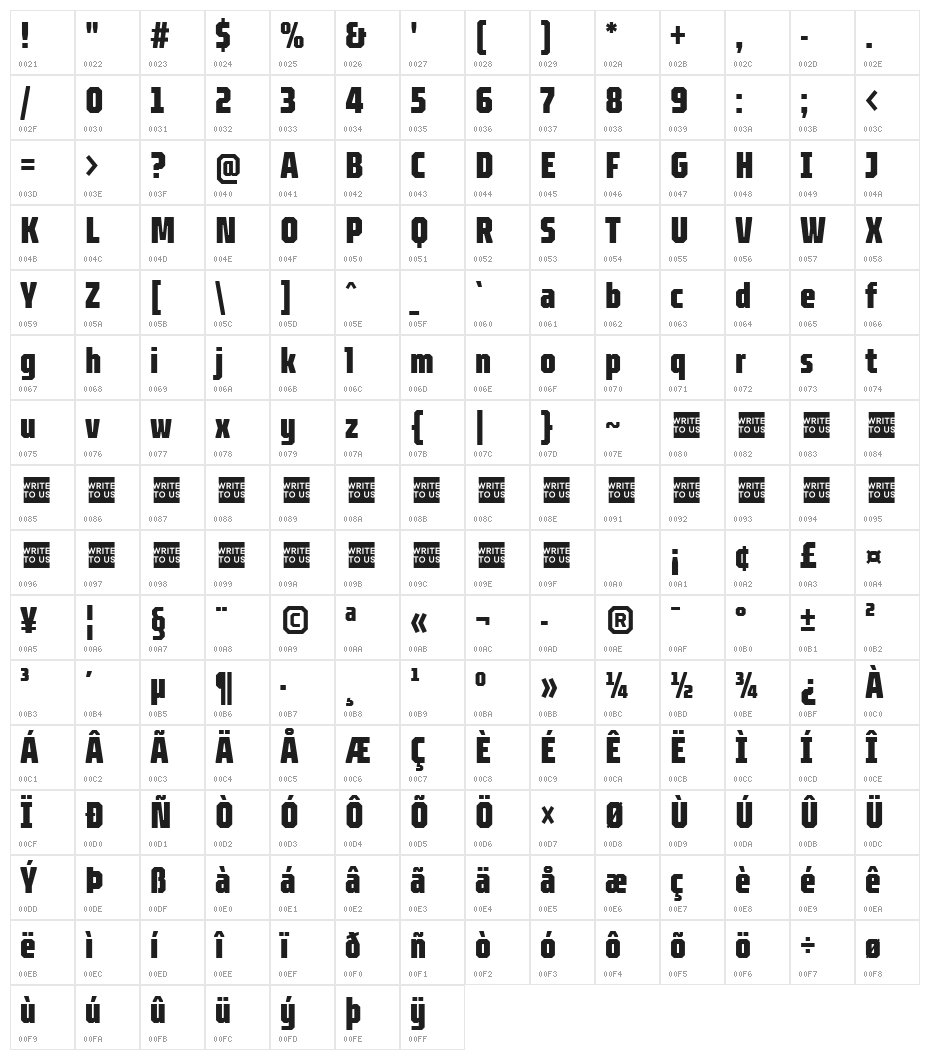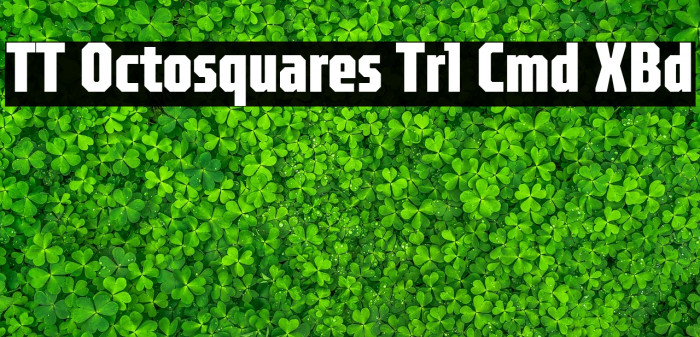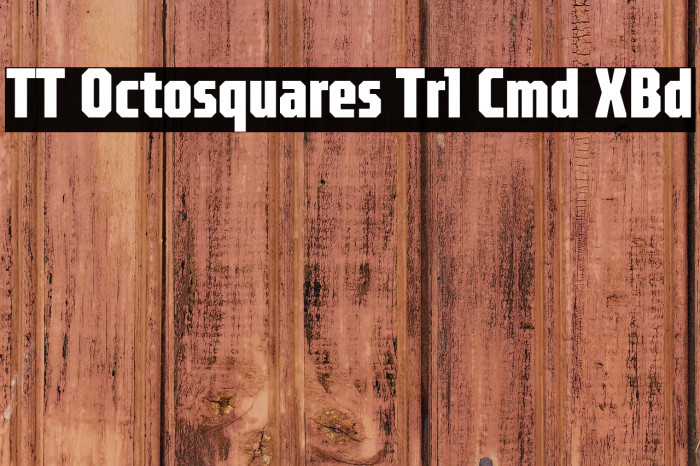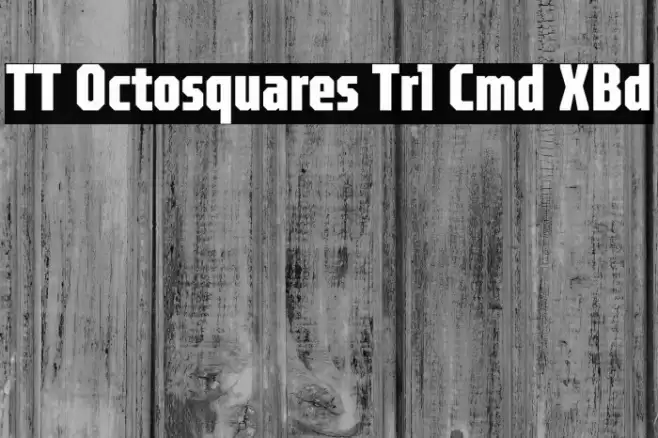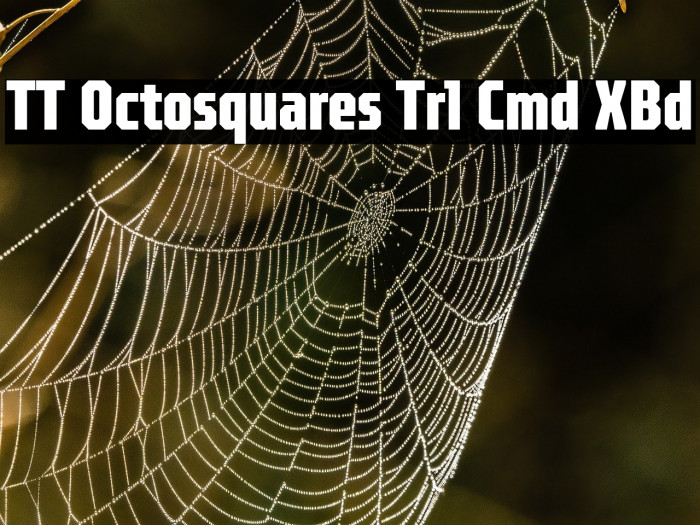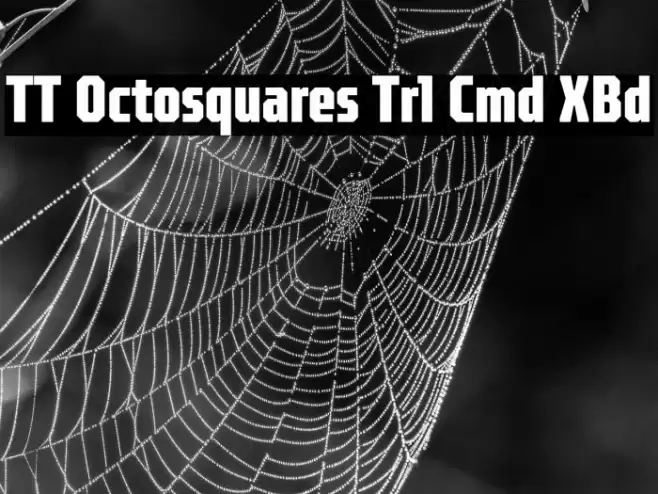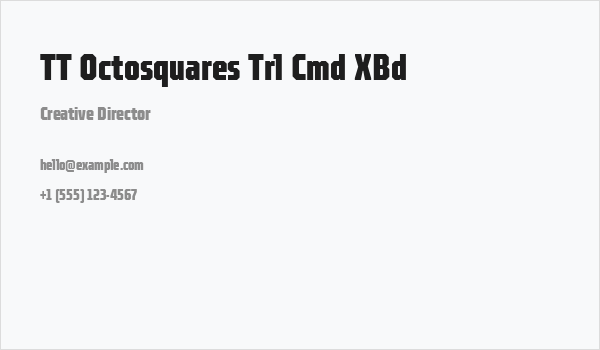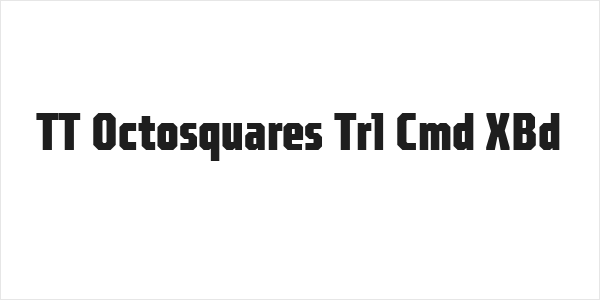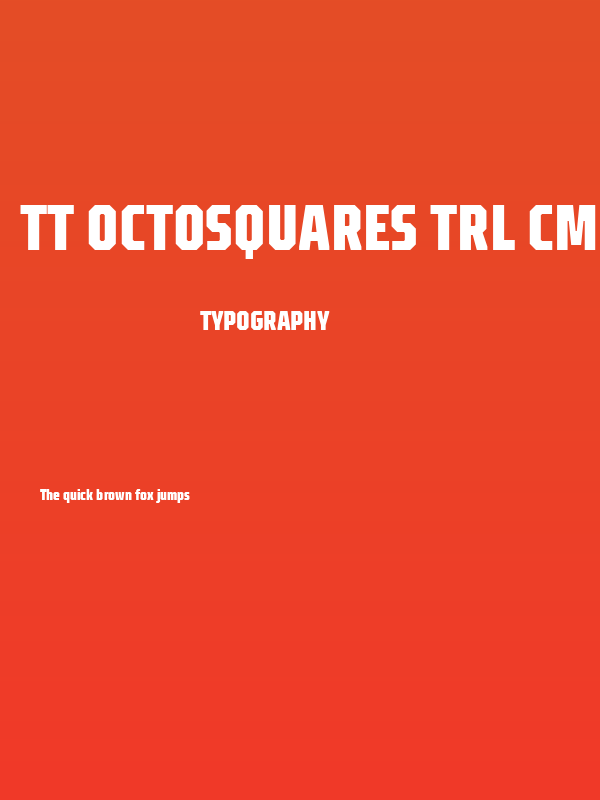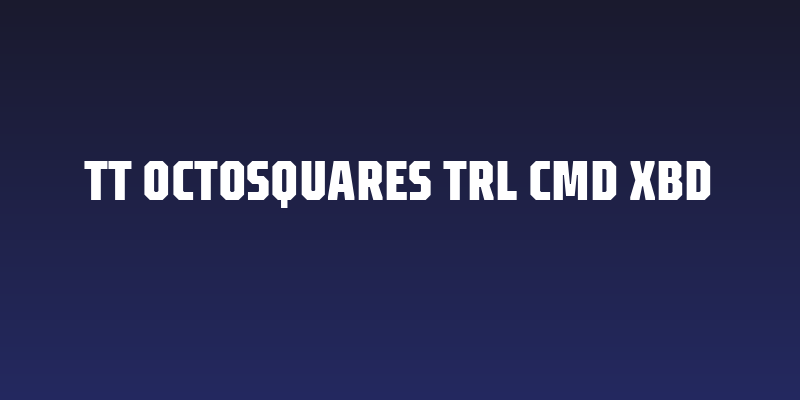
TT Octosquares Trl Cmd XBd Font
TT Octosquares Trl Cmd XBd Description
This font features a bold and commanding presence with its geometric and block-like design. The characters are constructed with sharp angles and straight lines, giving it a modern and industrial feel. The uppercase and lowercase letters maintain a consistent width, enhancing its uniform appearance. The numbers and special characters follow the same structural design, ensuring a cohesive look across all elements. This font's strong visual impact makes it ideal for attention-grabbing applications.
| Proposed Projects | Ideal for branding, posters, headlines, and any design requiring a strong, impactful typeface. |